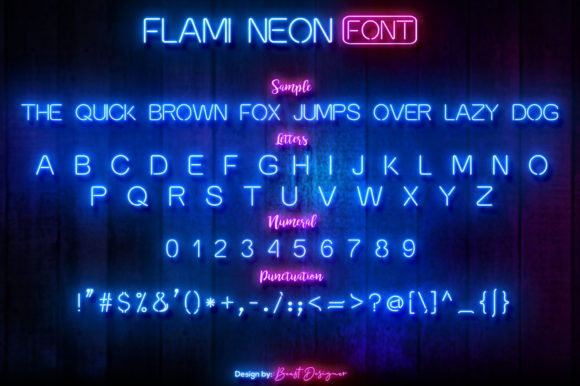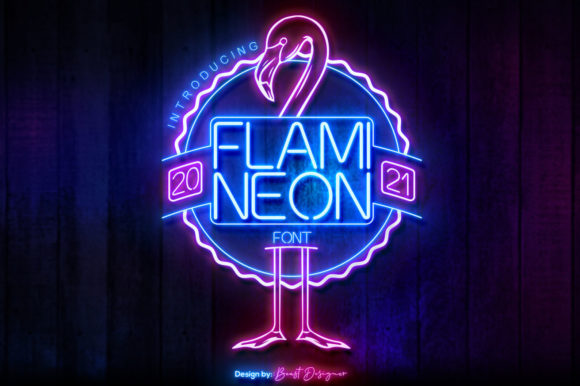
Introducing Flami Neon Font: The Ultimate Retro Display Font for Modern Creations
Are you tired of using the same old fonts for your designs? Look no further! Flami Neon Font is here to revolutionize your typography with its cool, simple lettered, and retro display style. This font is an incredible asset to any designer’s font library, and we’re excited to dive into its features and benefits.
What is Flami Neon Font?
Flami Neon is a modern, retro-inspired display font that is perfect for a wide range of design projects. Its unique blend of simplicity and neon-like aesthetics makes it stand out from the crowd. Whether you’re working on a logo, poster, social media graphic, or any other visual project, Flami Neon Font is sure to elevate your creation.
Key Features of Flami Neon Font
- Retro Display Style: Flami Neon Font boasts a distinctive retro display style that’s reminiscent of neon signs from the 80s and 90s.
- Simple Lettered Design: The font features a clean and simple lettered design that makes it easy to read and understand.
- Cool and Eye-Catching: The neon-like effect of the font is sure to grab attention and add a touch of coolness to your designs.
- Versatile: Flami Neon Font can be used for a wide range of design projects, from logos and posters to social media graphics and more.
Benefits of Using Flami Neon Font
So, why should you choose Flami Neon Font for your design projects? Here are just a few benefits of using this amazing font:
- Adds a Touch of Retro Flair: Flami Neon Font is perfect for designers who want to add a touch of retro flair to their designs.
- Elevates Your Designs: The font’s unique style and neon-like effect are sure to elevate your designs and make them stand out.
- Easy to Read: Despite its retro style, Flami Neon Font is easy to read and understand, making it perfect for use in a variety of design projects.
- Increases Engagement: The cool and eye-catching design of Flami Neon Font is sure to grab attention and increase engagement with your audience.
Who Can Benefit from Flami Neon Font?
Flami Neon Font is perfect for a wide range of designers and crafters, including:
- Graphic Designers: Graphic designers who want to add a touch of retro flair to their designs can benefit from using Flami Neon Font.
- Logotype Designers: Logotype designers who want to create unique and eye-catching logos can use Flami Neon Font to add a touch of neon-like coolness.
- Social Media Designers: Social media designers who want to create engaging and attention-grabbing graphics can use Flami Neon Font to add a touch of retro flair.
- Crafters: Crafters who want to add a touch of personality to their DIY projects can use Flami Neon Font to create unique and eye-catching designs.
Tips for Using Flami Neon Font
Here are a few tips for using Flami Neon Font in your design projects:
- Use it as a Display Font: Flami Neon Font is perfect for use as a display font to add a touch of retro flair to your designs.
- Experiment with Colors: The neon-like effect of Flami Neon Font can be enhanced by experimenting with different colors and gradients.
- Pair it with Other Fonts: Flami Neon Font can be paired with other fonts to create a unique and eye-catching design.
In conclusion, Flami Neon Font is an amazing retro display font that’s perfect for designers and crafters who want to add a touch of coolness and personality to their designs. Its unique blend of simplicity and neon-like aesthetics makes it stand out from the crowd, and its versatility makes it suitable for a wide range of design projects. So why wait? Download Flami Neon Font today and take your designs to the next level!